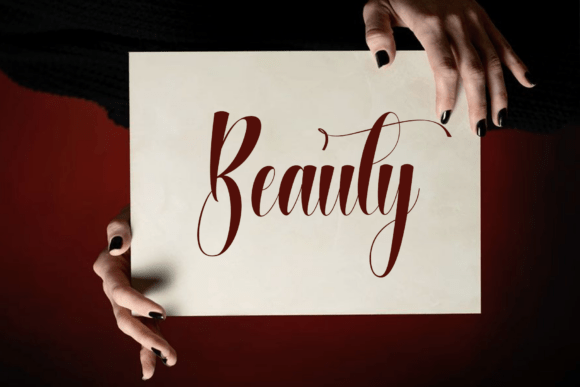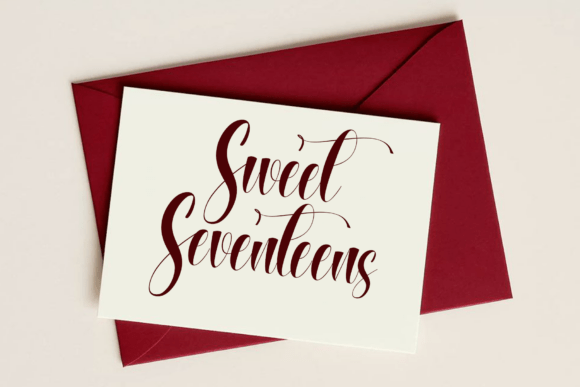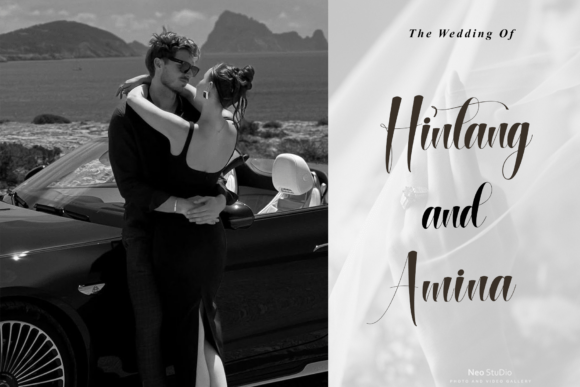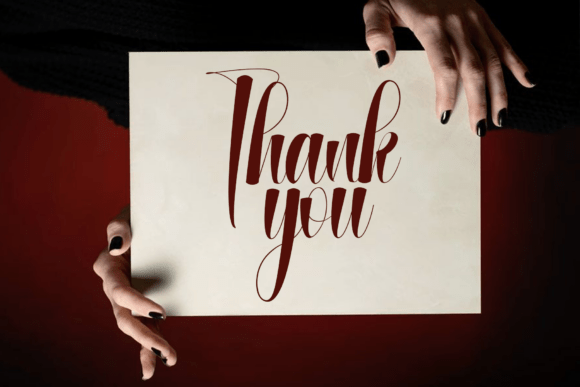
The Dreaming Font: A Timeless Choice for Creative Designs
Have you ever been in the middle of a design project, and suddenly, you just can’t seem to find the right font? I recall a particularly frustrating experience while working on a branding project for a client who wanted a logo that exuded elegance and sophistication. After hours of scouring through font libraries, I stumbled upon the Dreaming font, and it was love at first sight! ✨
A Personal Review of Dreaming Font
As a designer, I’m always on the lookout for fonts that can elevate my designs and make them stand out. Here’s what I love about Dreaming font:
- ✨ Unique and beautiful touch: Every letter in the Dreaming font has a distinct character that adds a touch of personality to your designs.
- ✅ Timeless appeal: The handwritten style of Dreaming font is both classic and modern, making it suitable for a wide range of design projects.
- 💫 Versatile: Whether you’re creating logos, branding materials, or quotes, Dreaming font is an excellent choice.
While Dreaming font is an excellent choice, it’s not without its quirks:
- 🤔 Occasional kerning issues: As with any font, you might need to adjust the kerning to ensure optimal readability.
The Backstory of Dreaming Font
The Dreaming font was created by a talented type designer who wanted to craft a font that would evoke a sense of timelessness and elegance. The designer’s inspiration came from classic handwritten fonts, with a modern twist. The result is a font that’s both beautiful and versatile.
| Font Name | Dreaming Font |
| Author | Sansana |
| What is the best use for Dreaming font? | Dreaming font is ideal for creating eye-catching logos, branding materials, and quotes. |
| Is Dreaming font suitable for body text? | While Dreaming font is beautiful, it’s best suited for headlines and titles. For body text, a more legible font would be a better choice. |